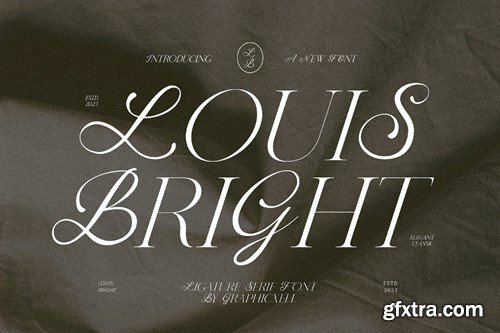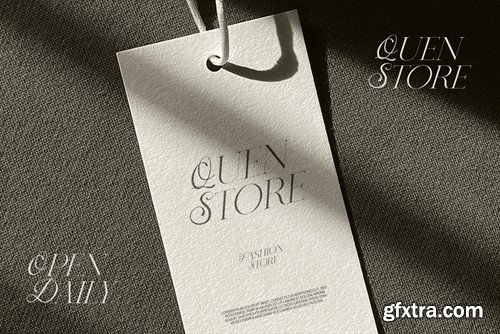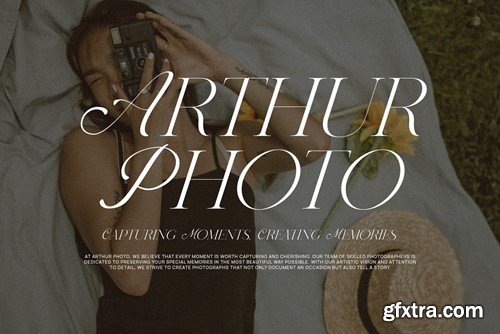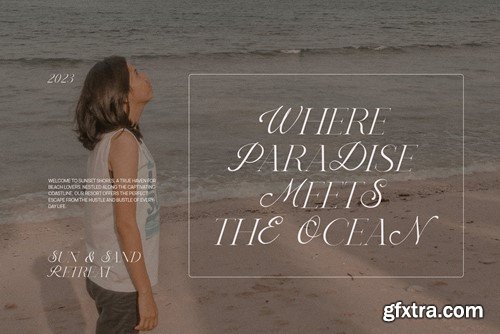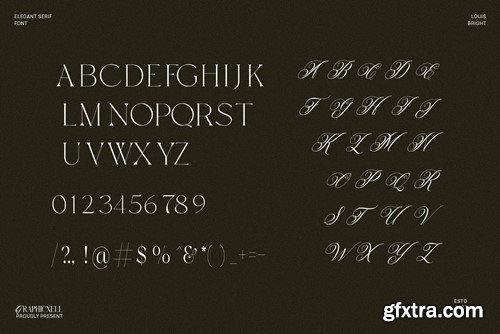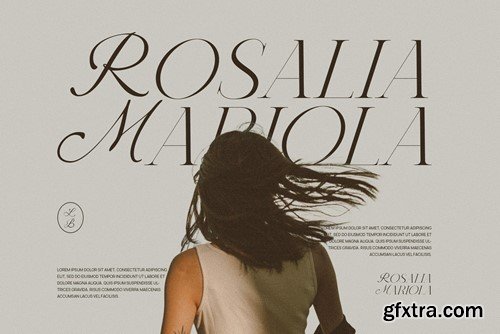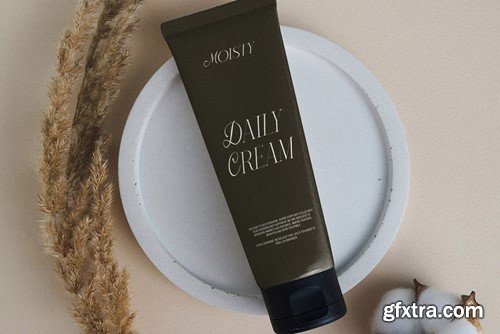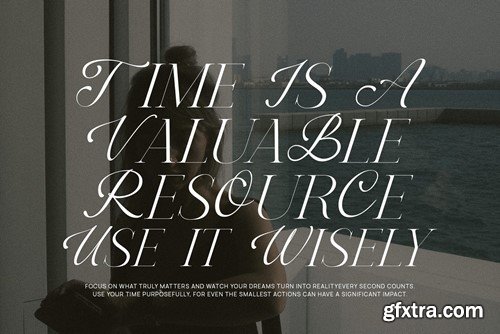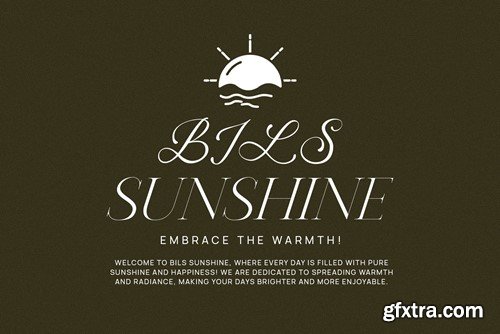
洛维斯·布莱特优雅&高端衬线字体WP3SGH6
Louis Bright Elegant & Premium Serif Font WP3SGH6
Louis Bright Elegant & Premium Serif Font
is a unique and very elegant font for branding and logo designs Elegant serif typeface combined with a classy and modern style. This type of font is very suitable for your various needs such as branding projects, logos, wedding designs, social media posts, advertisements, product packaging, product designs, labels, photography, watermarks, invitations, stationery, and any project, created with high level of readability. you will not be disappointed if you buy this font!!